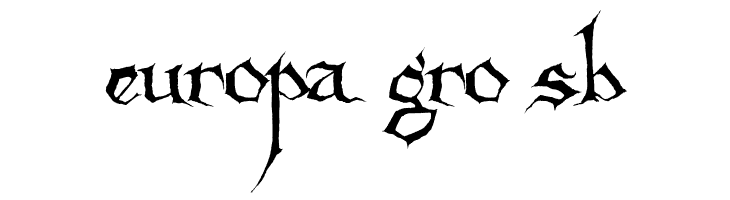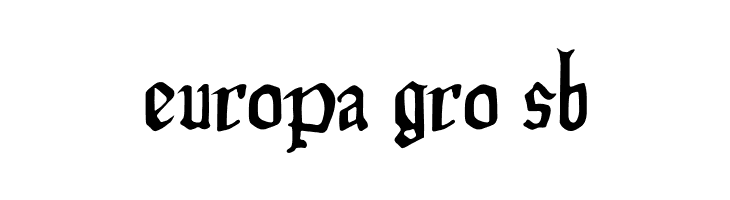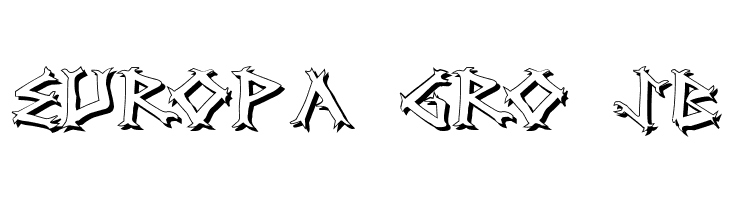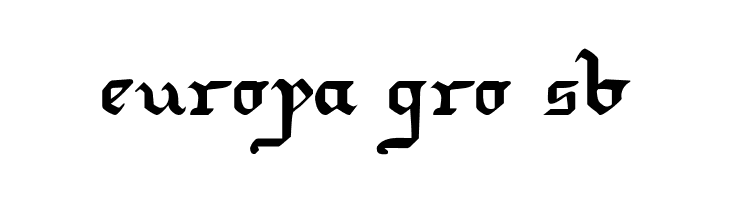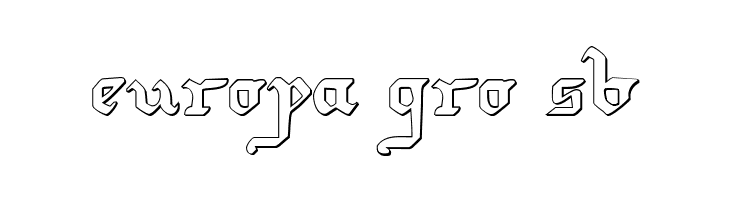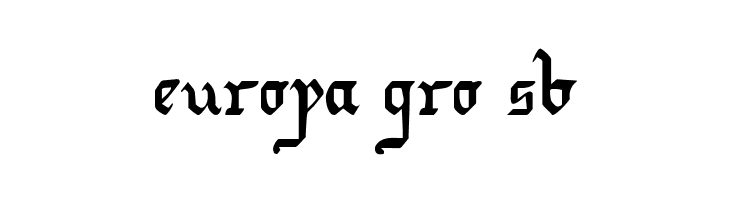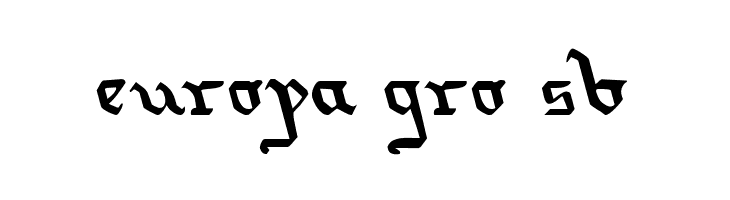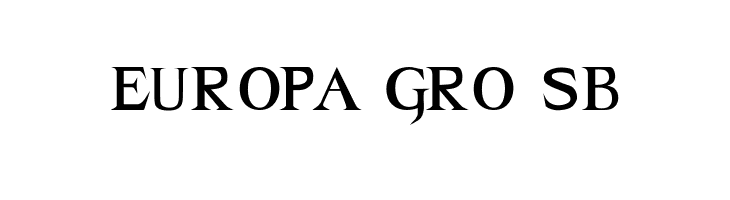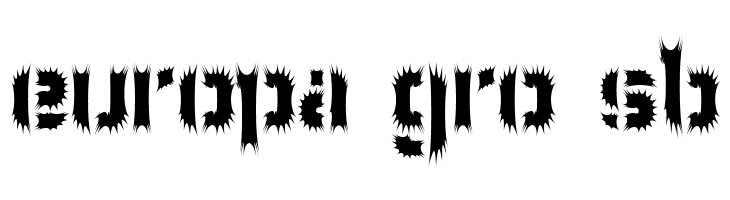
A dramatic, gothic-style font with sharp, angular lines and intricate design.
A bold, shadowed font with a gothic, angular design.
A bold, blackletter-style font with sharp, angular lines and intricate detailing.
A bold, shadowed Blackletter-style font with intricate detailing.
A bold, condensed Blackletter-style font with intricate, gothic-inspired characters.
A bold blackletter font with ornate, sharp angles and dramatic strokes.
A bold, ornate Blackletter font with intricate details and a dramatic style.
A bold, gothic-style font with sharp serifs and a medieval flair.
A bold, spiky font with dramatic, jagged edges for a striking visual impact.